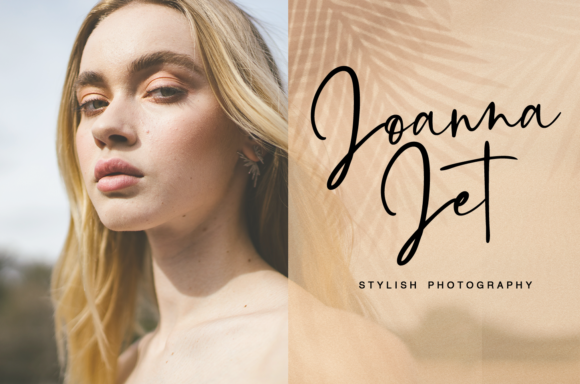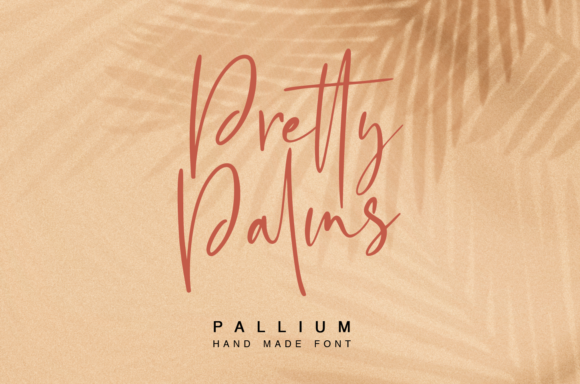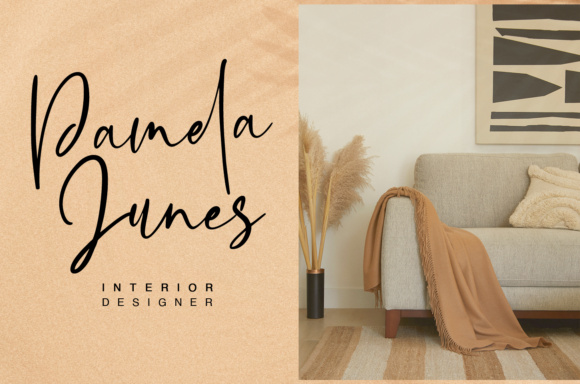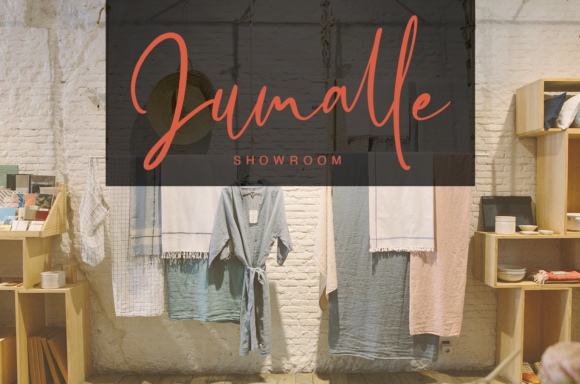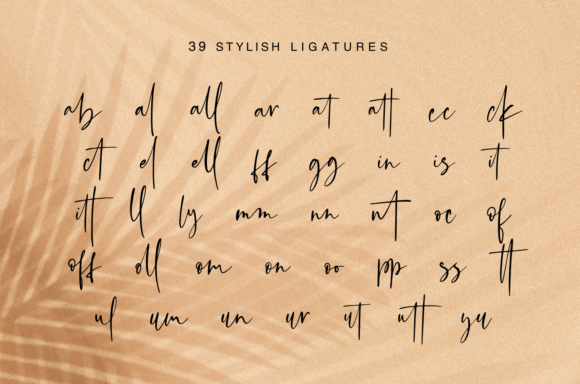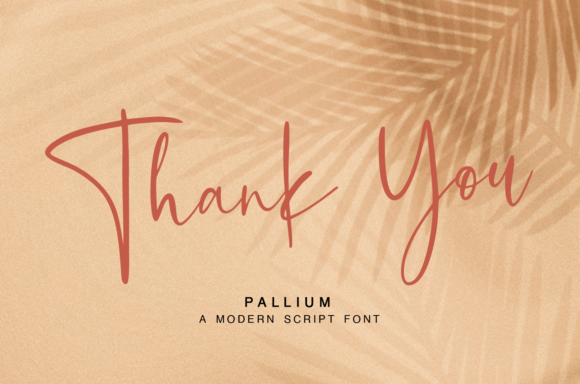
Introduction to Pallium Font
As a designer, there’s nothing quite like the thrill of bringing a creative project to life. The moment when your ideas start to take shape, and your design begins to shine. It’s a feeling that’s hard to replicate, but it’s a reminder of why we do what we do – to create something truly special. And, for designers, the right font can be the key to unlocking that magic.
That’s where the Pallium Font comes in – a high-quality, handwritten font that’s sure to elevate your design game. With its unique and beautiful touch, it’s the perfect choice for creating eye-catching logos, branding, and quotes. And the best part? It’s a free download, available for designers to use in their creative projects, complete with a transparent background that makes it easy to work with.
Whether you’re a seasoned pro or just starting out, the Pallium Font is a valuable addition to any design resource. So why settle for an ordinary font when you can have one that’s truly extraordinary?
Key Features of Pallium Font
- High-quality font design suitable for creative projects, including logos, branding, and graphics.
- Features a clean, modern design with a unique character set, making it ideal for a wide range of creative projects.
Honest Review: Pallium Font
I recently stumbled upon the Pallium Font and I’m excited to share my thoughts on this high-quality design resource. As a designer, I’m always on the lookout for unique and creative fonts that can elevate my projects.
- ✨ High-quality design: The Pallium Font is incredibly detailed and visually appealing, making it perfect for any creative project.
While the Pallium Font is an excellent addition to any design library, I did encounter a few limitations.
- ⚠️ Limited character set: The font only includes a limited set of characters, which may not be suitable for projects that require a wider range of characters.
- ⚠️ Not suitable for small text: Due to its intricate design, the font may not be the best choice for small text sizes, as it can become difficult to read.
Overall, I’m impressed with the Pallium Font and would recommend it to designers who are looking for a high-quality, unique font to add to their creative projects.
Tips for Getting the Most Out of Pallium Font
Use Pallium Font in combination with other design elements, such as graphics and images, to create visually appealing designs. Experiment with different font sizes, colors, and styles to find the perfect look for your creative project. You can also use the font in conjunction with other design resources, such as templates and graphics, to create a cohesive design.
Common Use Cases for Pallium Font
Pallium Font is a versatile design resource that can be used in a variety of creative projects, including: branding, marketing materials, social media graphics, and presentations. It’s a high-quality font that can add a touch of sophistication and elegance to any design.
Can I use the Pallium Font in combination with other fonts?